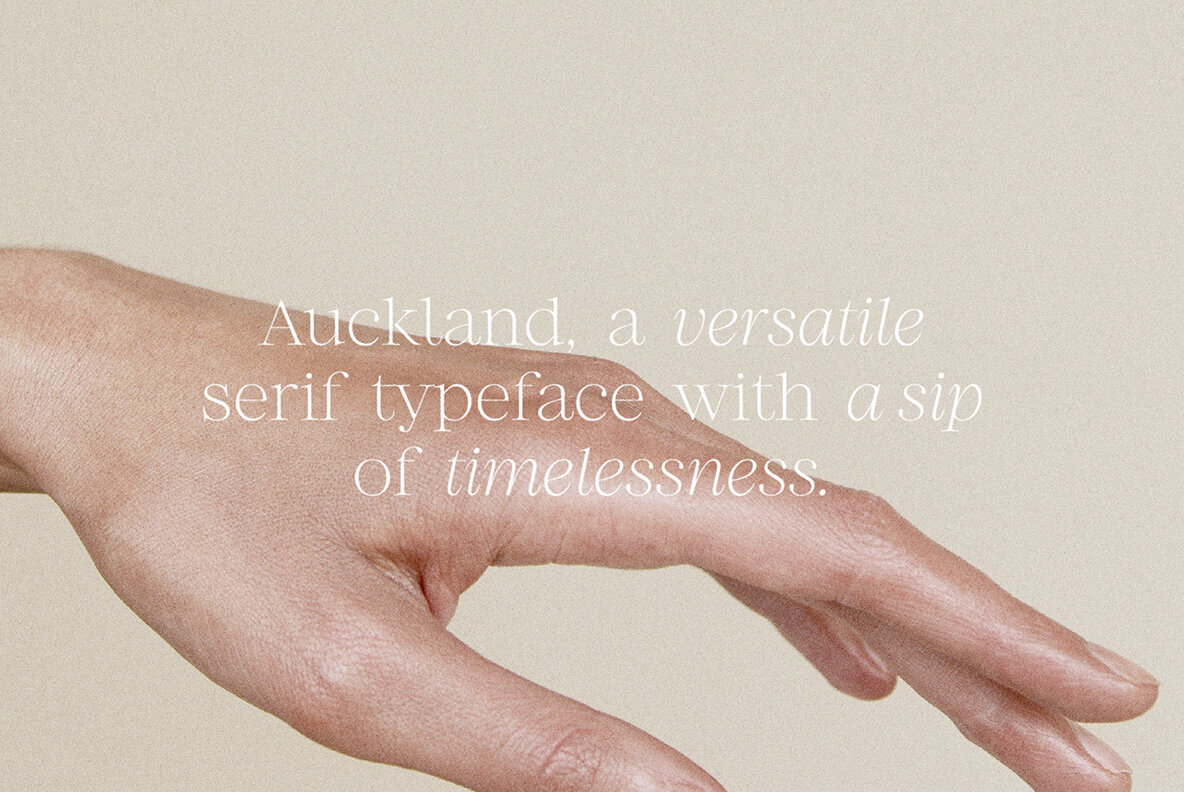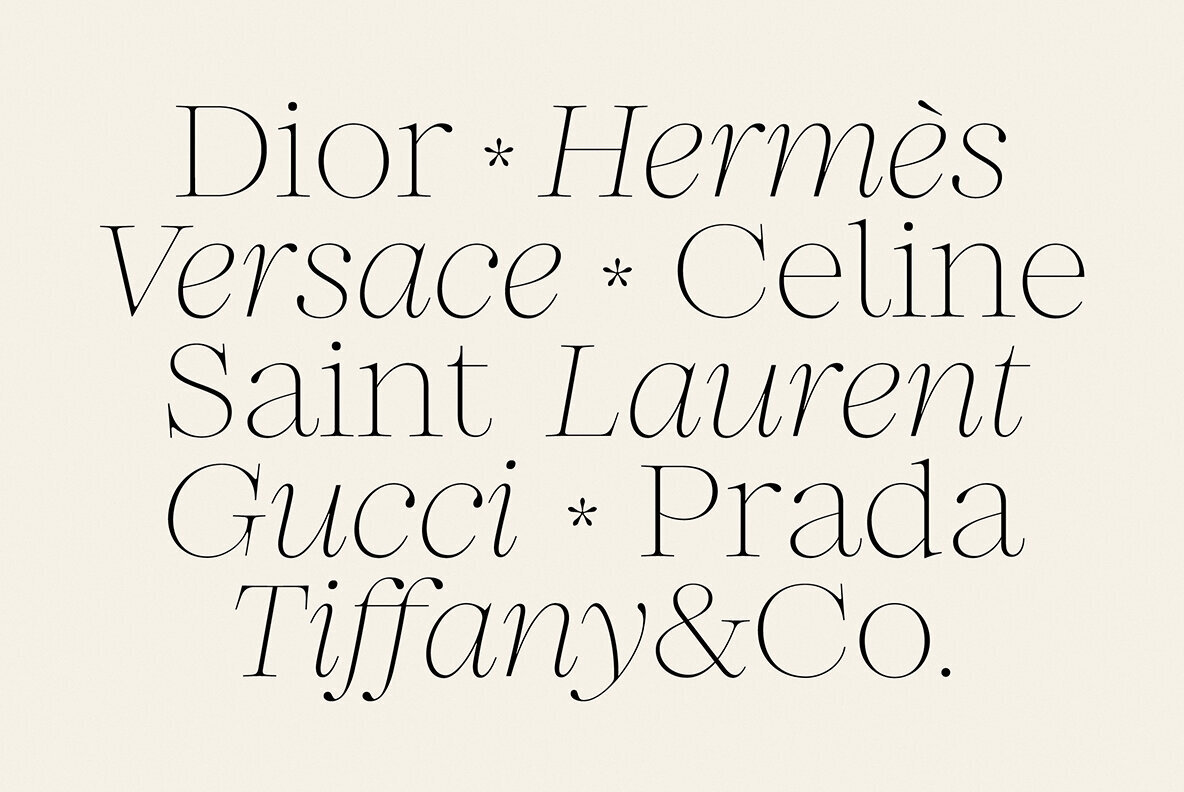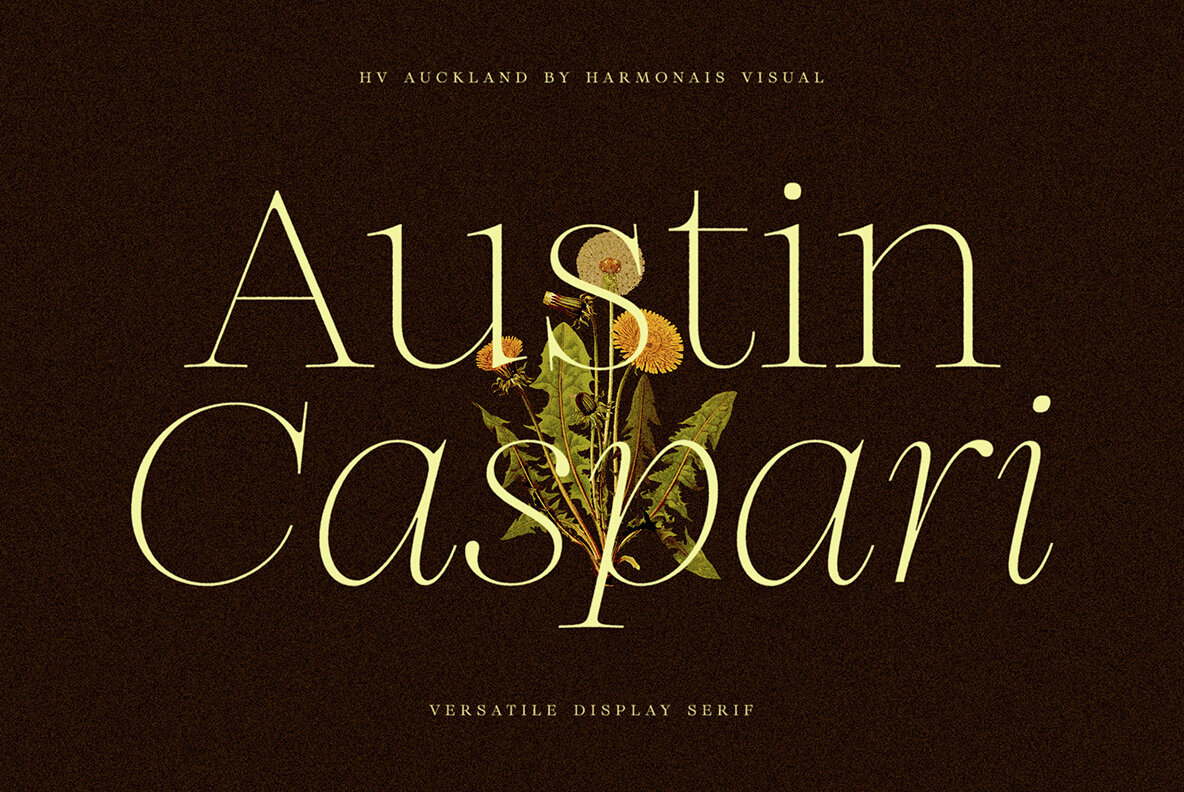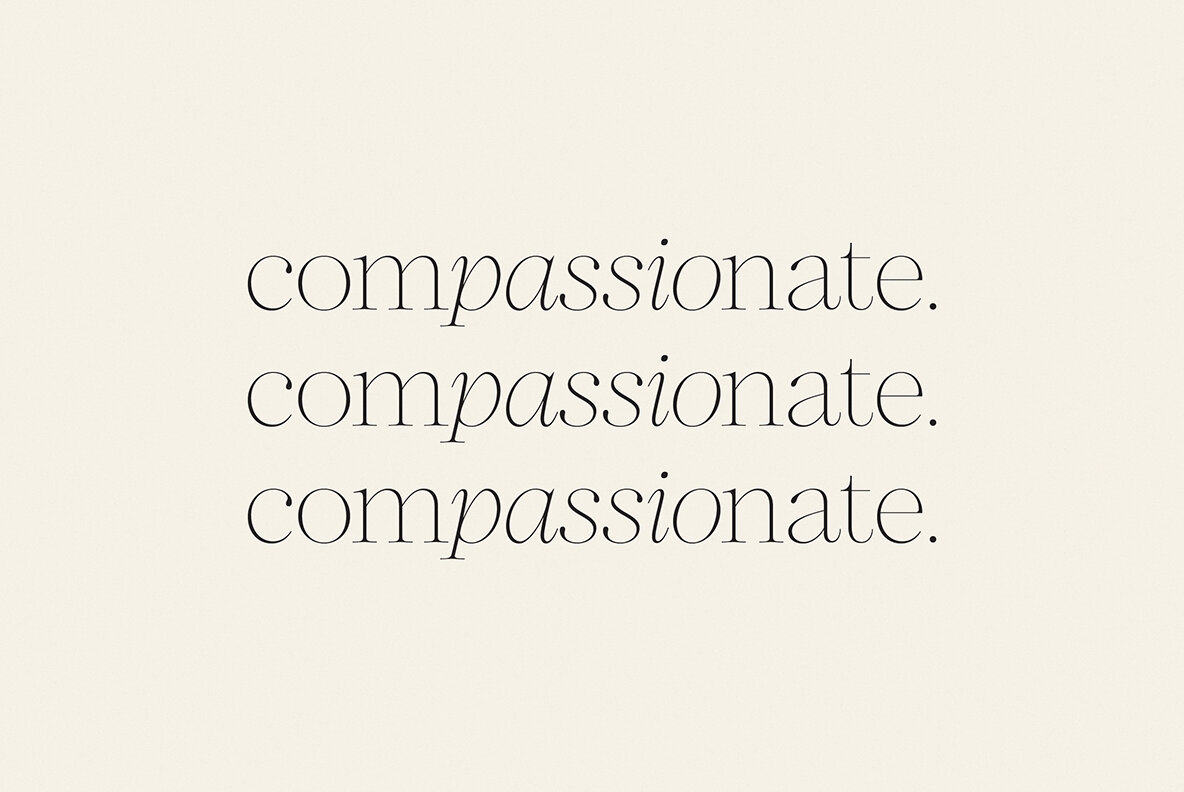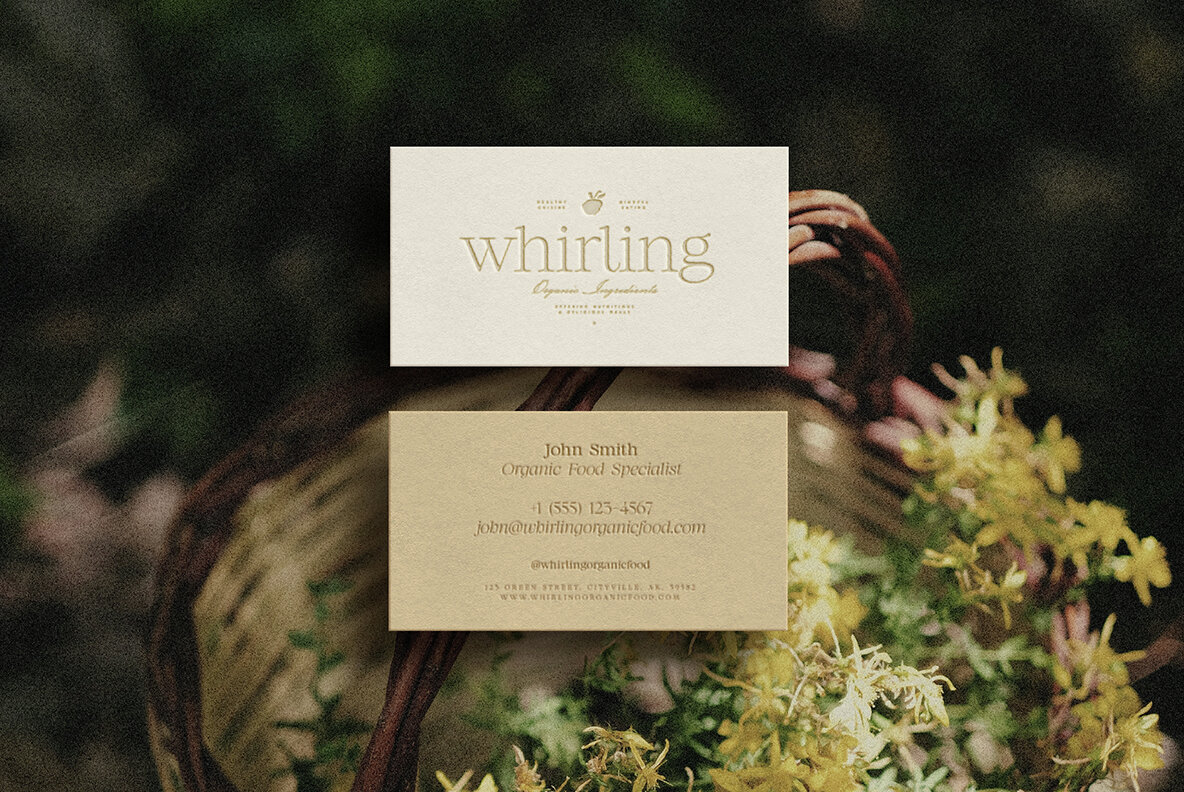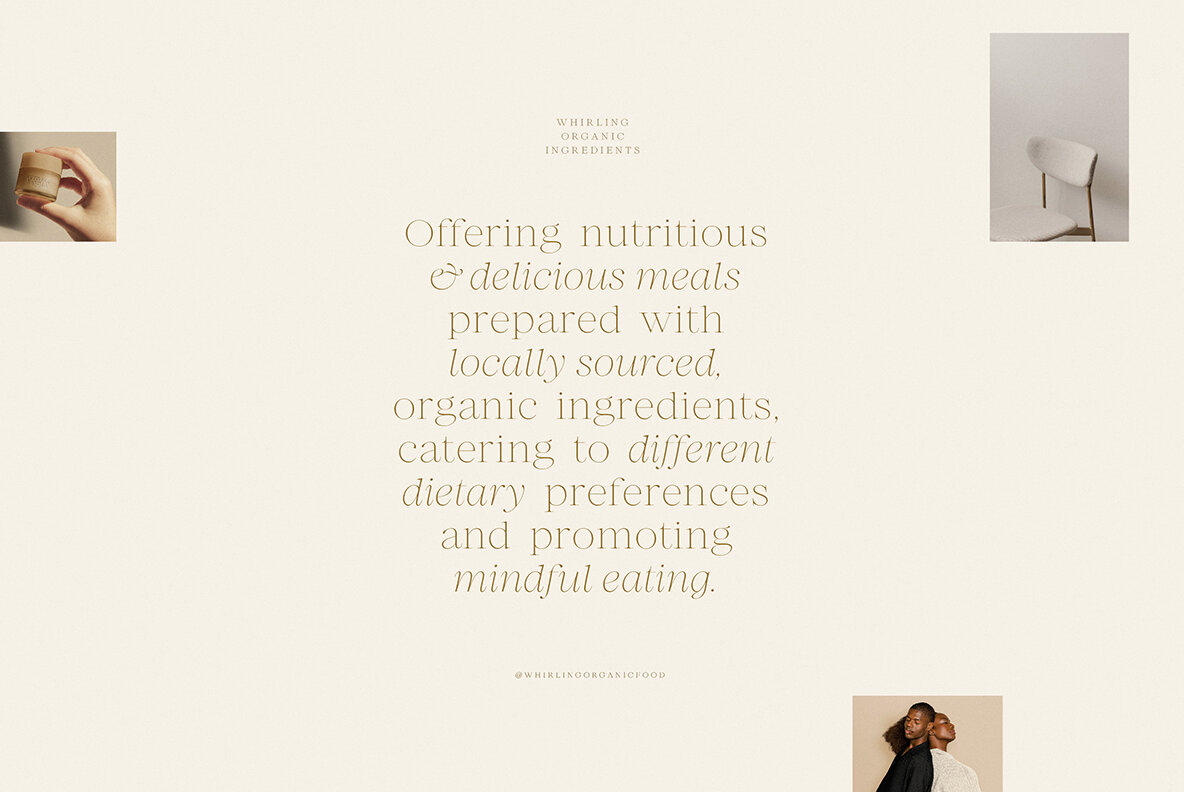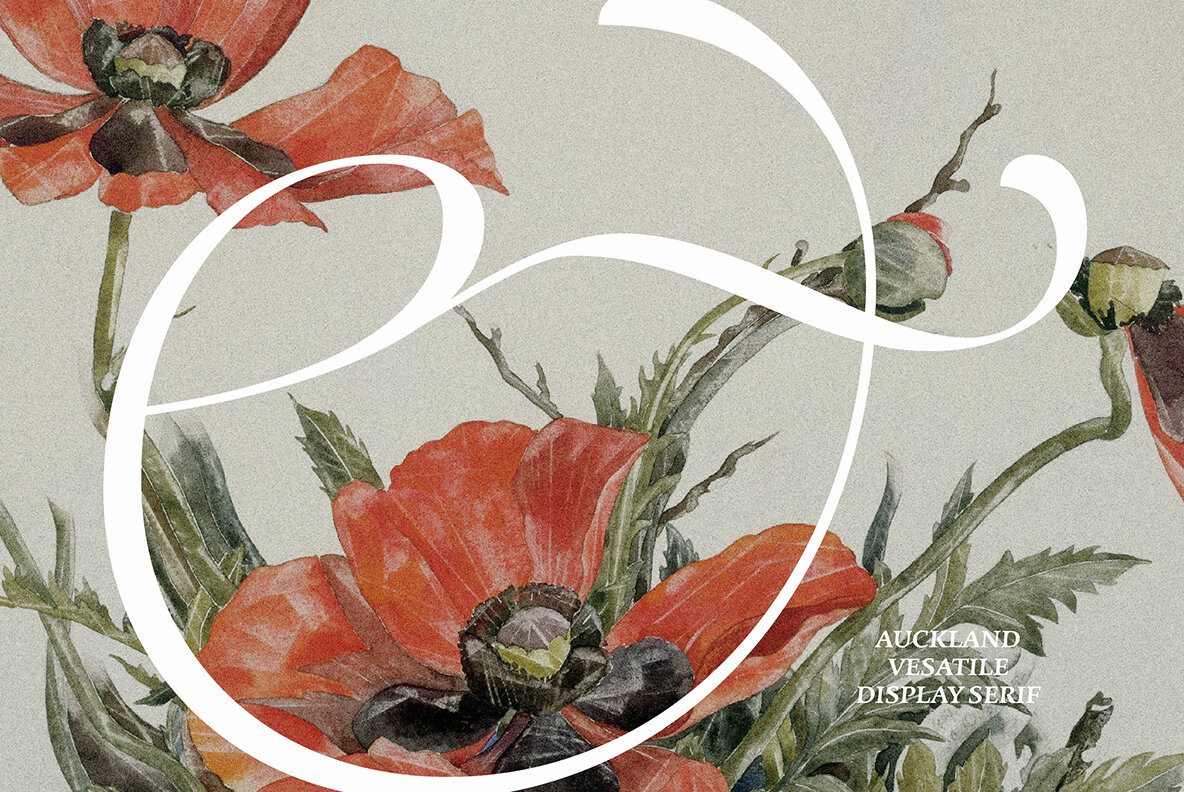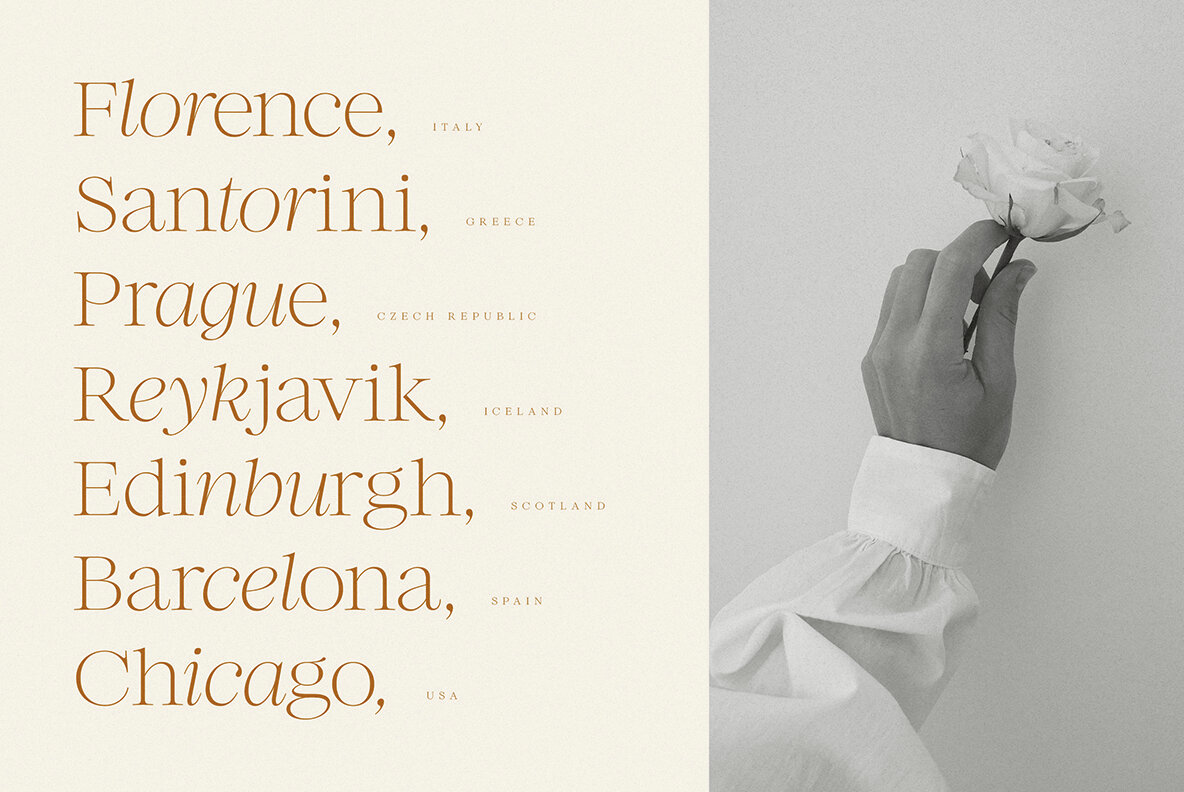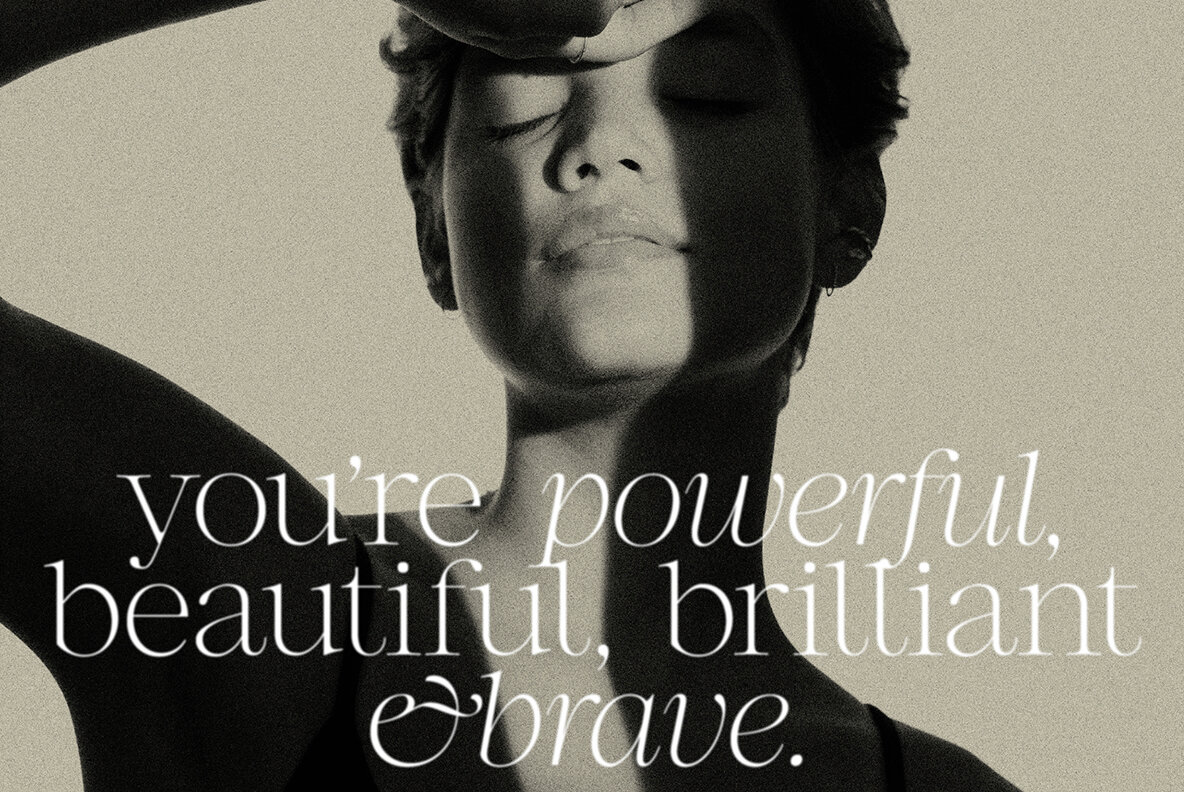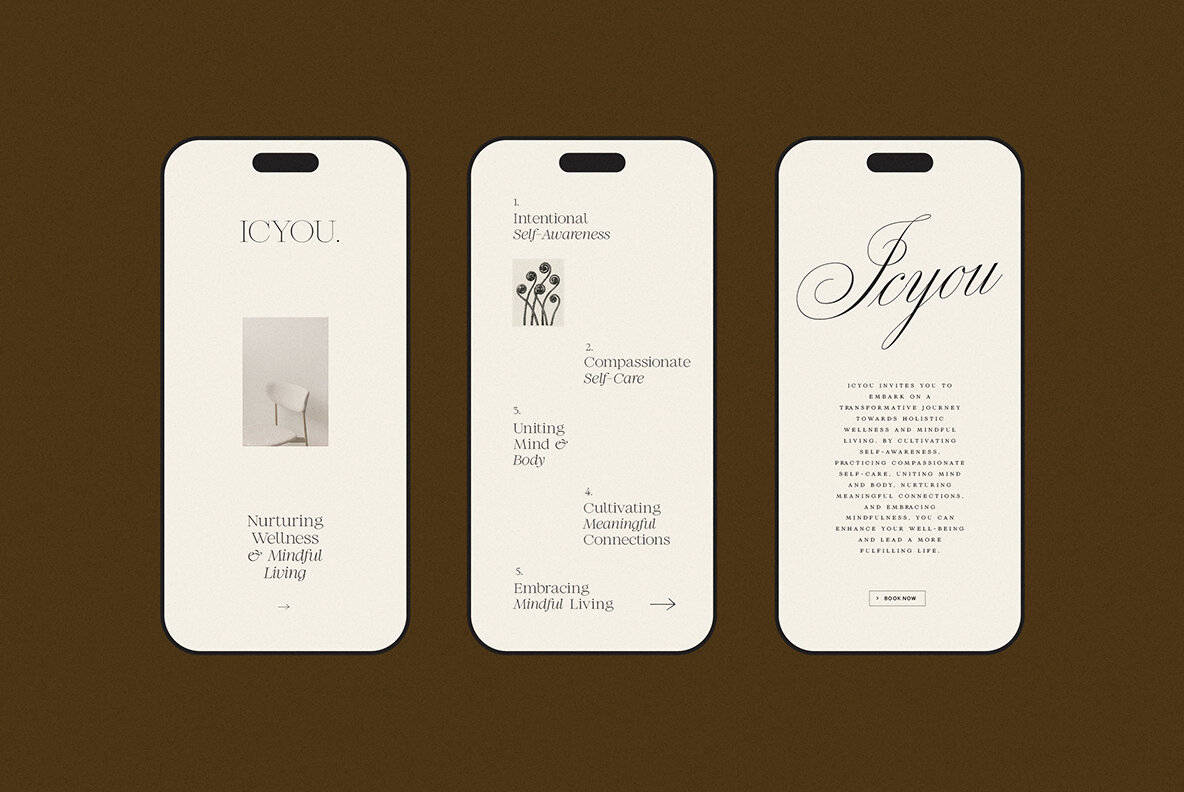
Auckland is a highly versatile and elegant serif font that exudes a timeless charm. With its beautifully crafted curves and exquisite details, Auckland is the perfect choice for a wide range of design projects. Whether you need a font for display purposes, web design, or social media, Auckland will effortlessly elevate your creations to the next level. Its fancy curves add a touch of sophistication and uniqueness, making it a standout choice among other fonts. Embrace the versatility and elegance of Auckland and let your creativity soar!